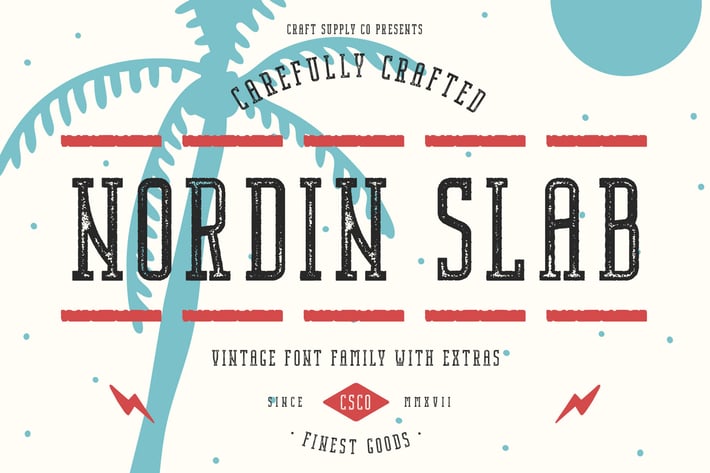
Nordin Slab Vintage Font Family
Introducing Nordin Slab Vintage Font Family. It can be used to create almost all types of design projects like print materials. Just use your imagination and some graphic design, your project will become more alive and look great than ever with one of the Nordin Slab Vintage Font.
You want to make a greeting card or a package design, or even a brand identity, craft design, any DIY project, book title, wedding font, pop vintage design, retro design or any purpose to make your art / design project look pretty and trendy? Feel free to play with all style of this font!
- Nordin Slab Regular
- Nordin Slab Outline
- Nordin Slab Rough
- Nordin Slab Stamp
- All Caps Fonts
- Standard Ligatures
- Numerals & Punctuations (OpenType Standard)
- Accents (Multilingual characters) (AÀÁÂÃÄÅCÇDÐEÈÉÊËIÌÍÎÏNÑOØÒÓÔÕÖUÙÜÚÛWYÝŸỲŸÆŒßÞ)